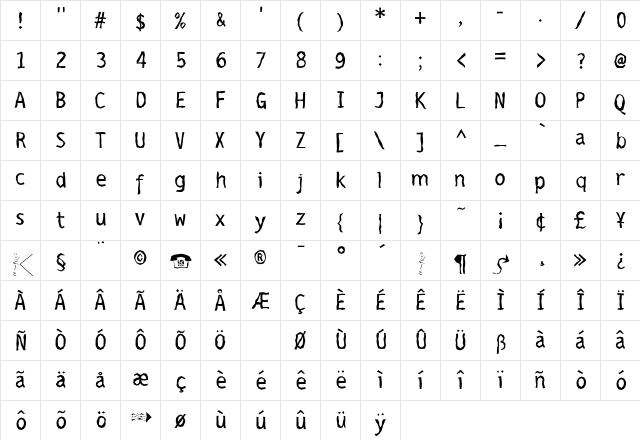
EarthquakeTypewriter Regular
Design Context for EarthquakeTypewriter
EarthquakeTypewriter uses fixed-width spacing throughout, giving it the structured, systematic character associated with coding environments and technical documentation.
Pro Tip: Use EarthquakeTypewriter with slightly increased line-height for extended reading - fixed-width spacing can feel dense in longer passages without extra breathing room.